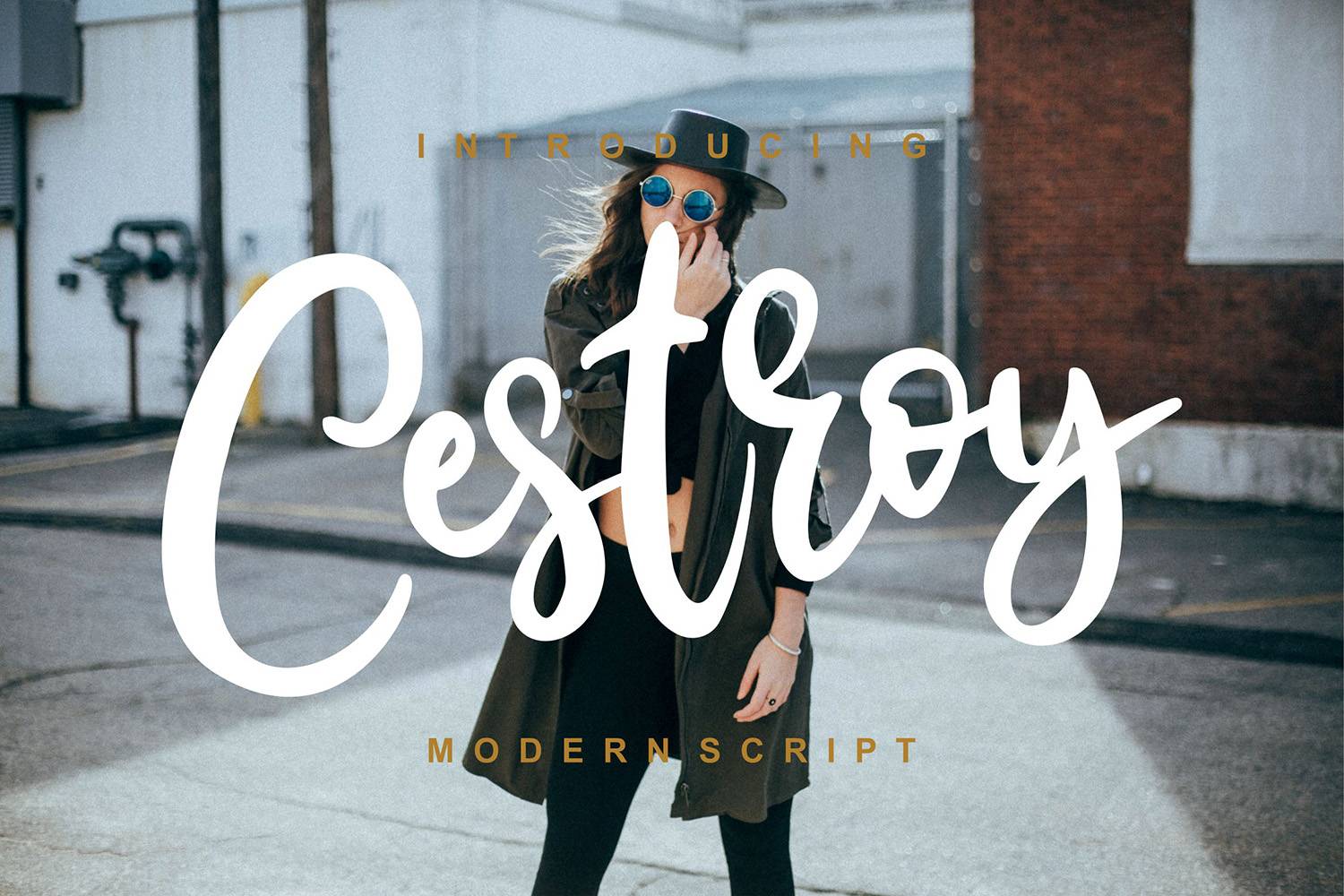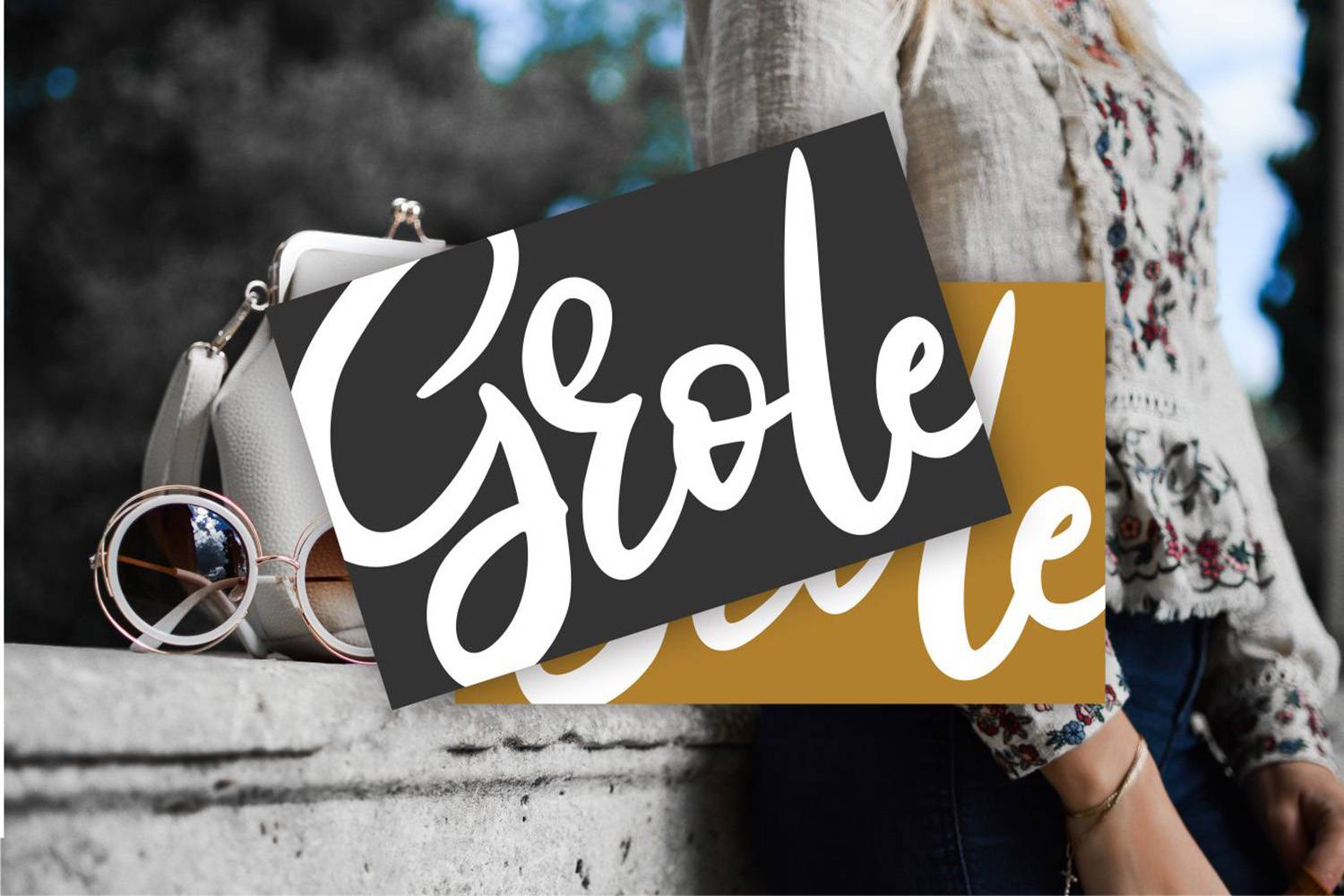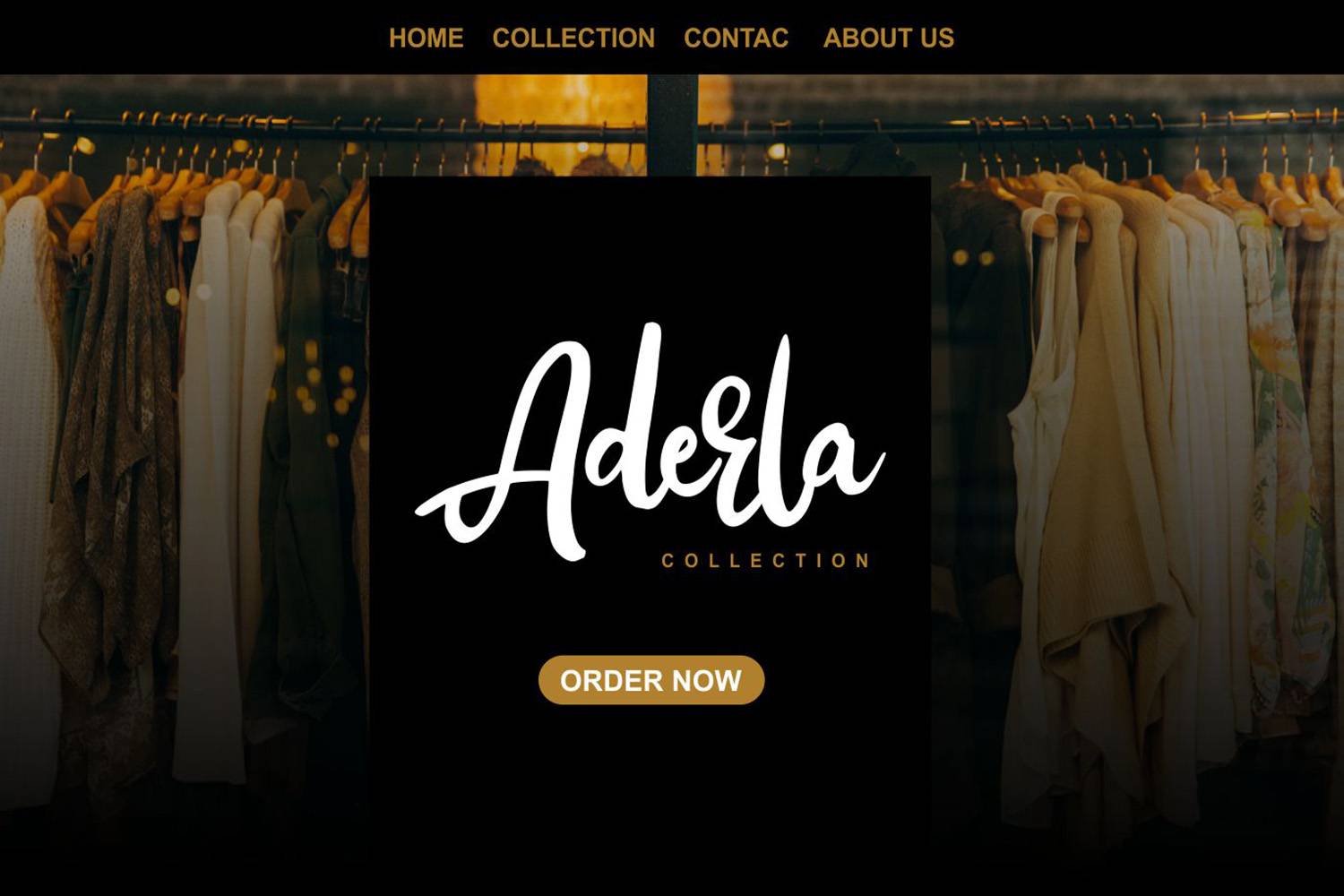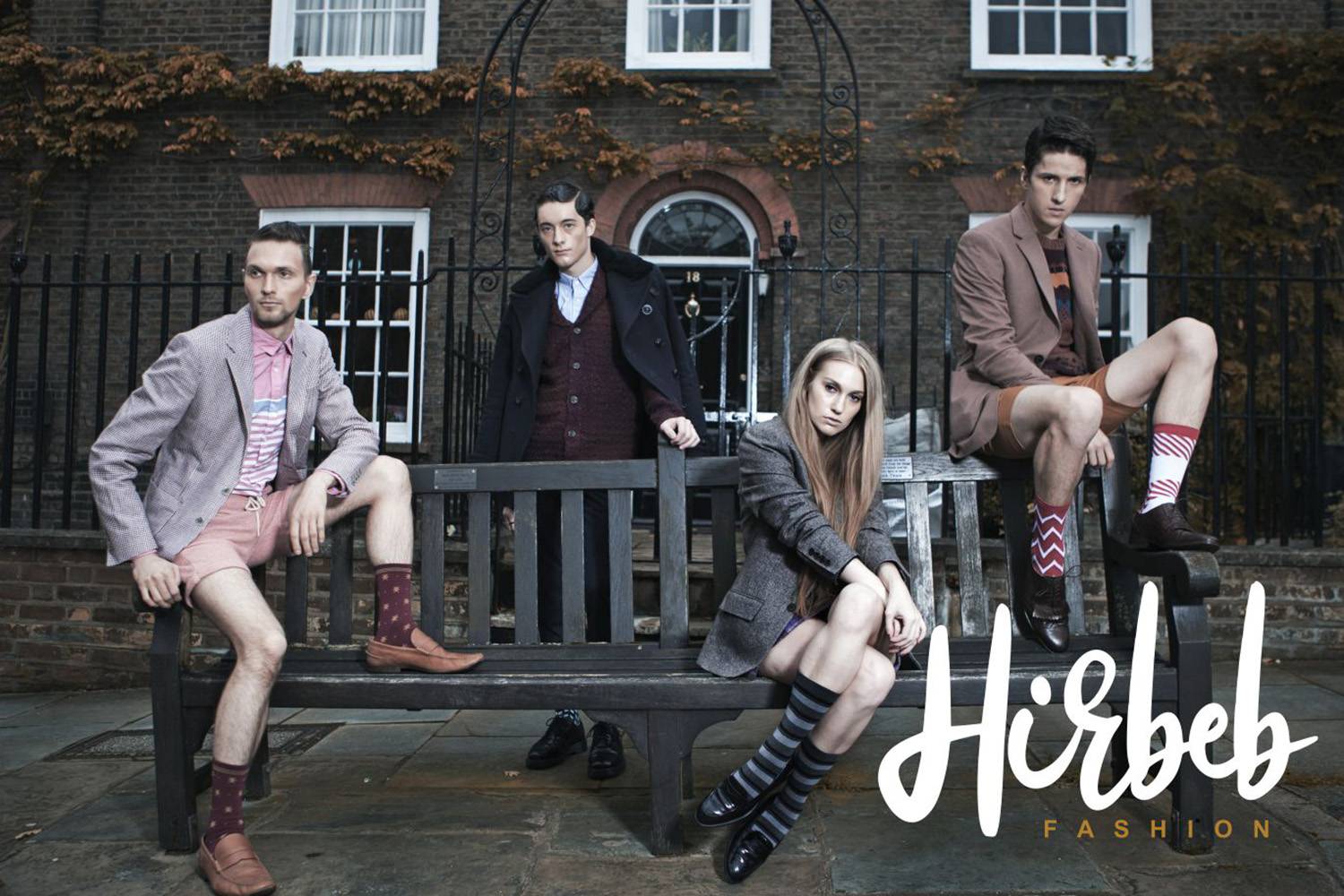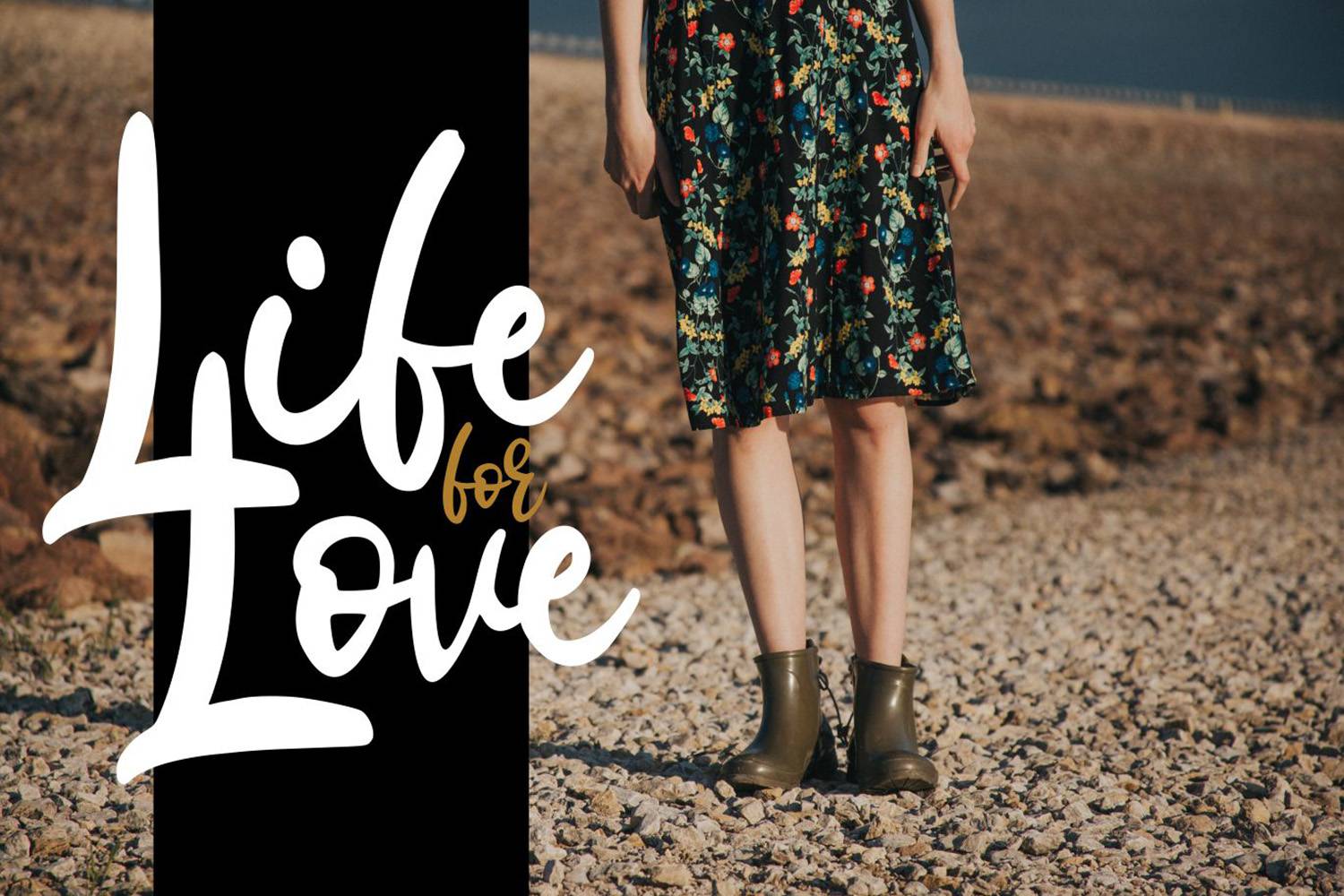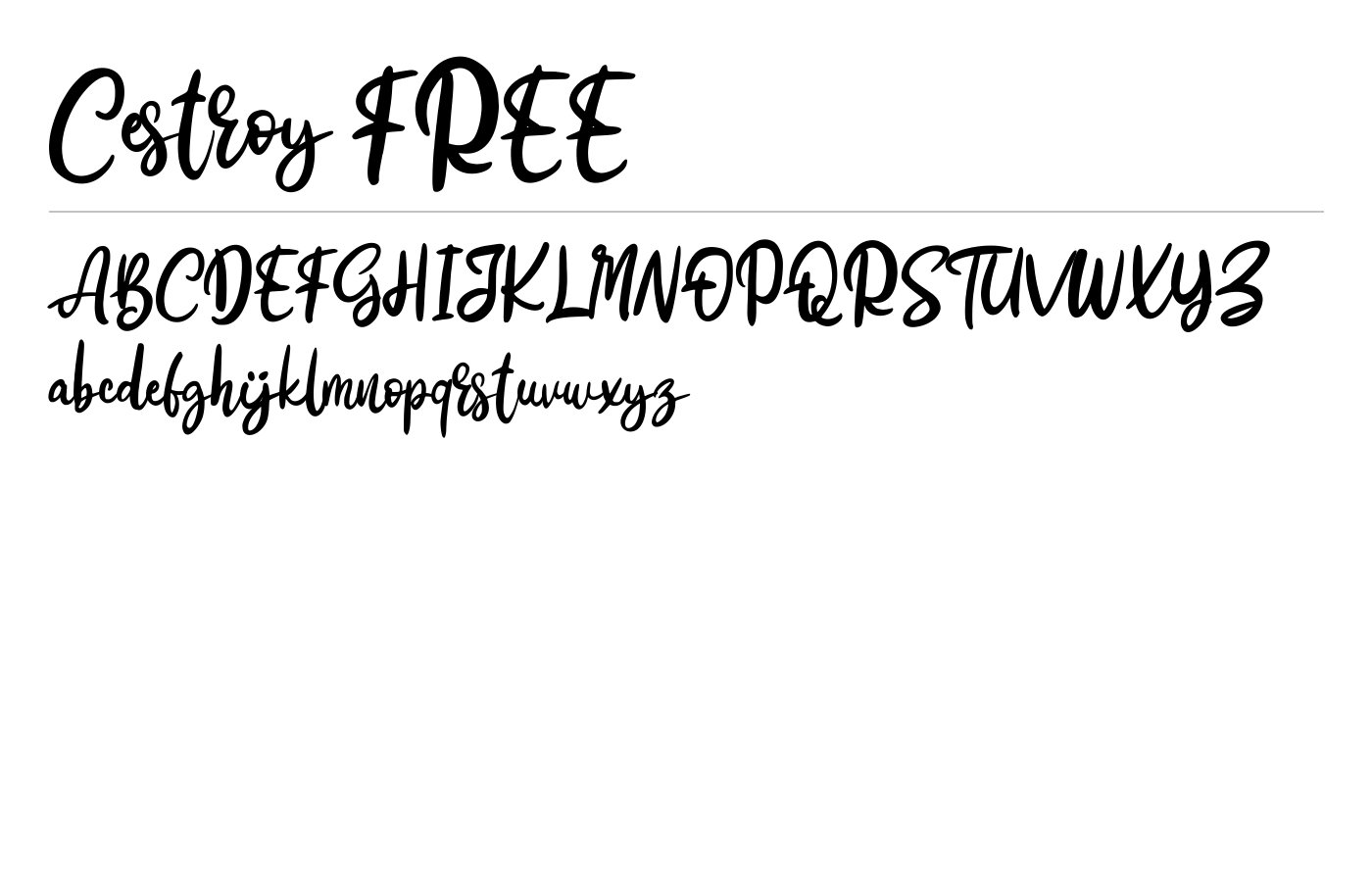
Cestroy is a lively and flowing script font that captures a casual, handwritten feel with its smooth, connected strokes and moderate contrast. Its playful yet elegant character makes it perfect for creative projects, invitations, logos, and branding that seek a personal and approachable touch. The font’s balanced mix of bold and delicate letterforms lends it versatility for both headlines and decorative text.
Cestroy Font
About Cestroy Font
| Font family | Cestroy Font |
| Designer | Fannan Studio |